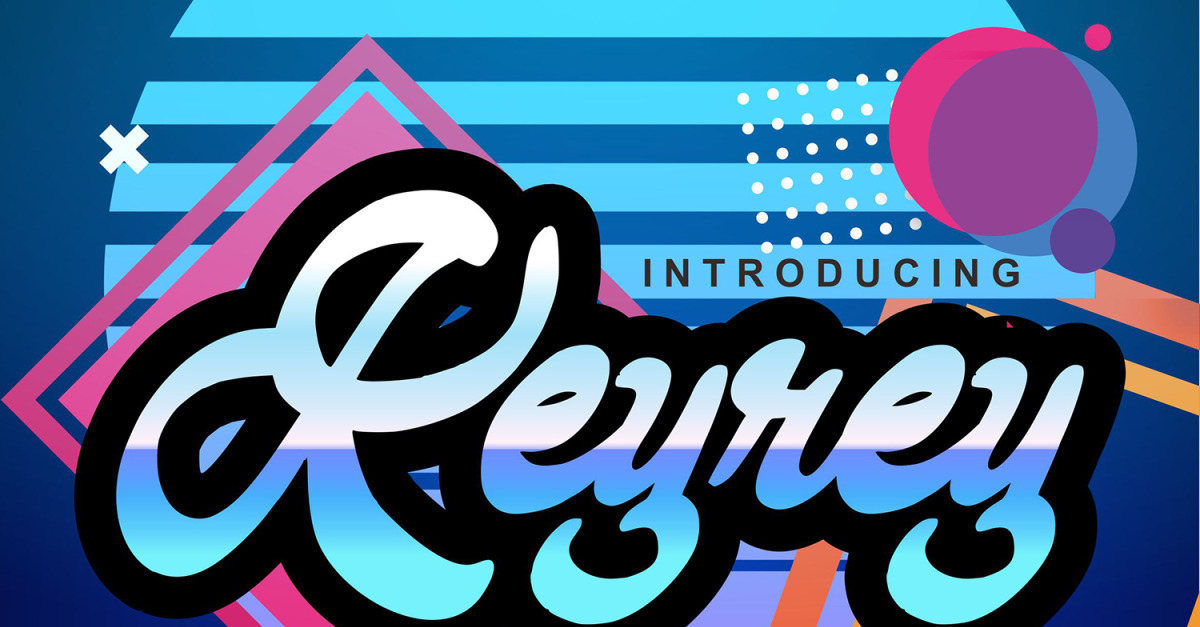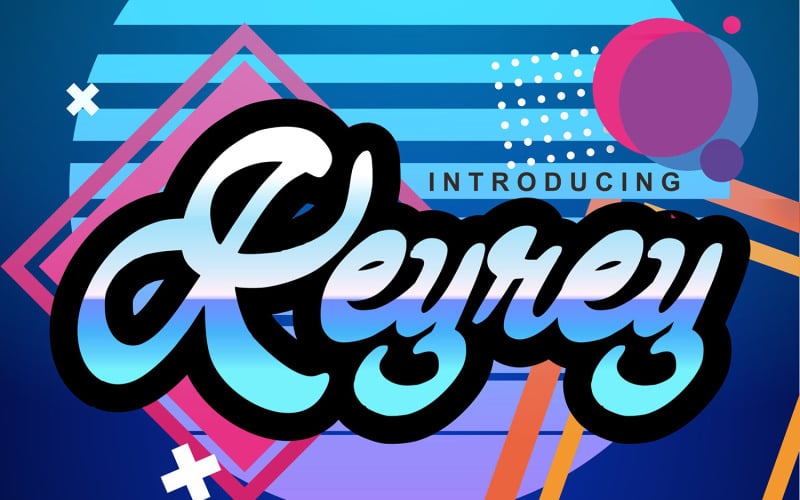
Keyrey | Handcrafted Cursive Font
**Keyrey | Handcrafted Script Font** with a calligraphy style, So beautiful on invitation like greeting cards, branding materials, business cards, quotes, posters, and more!